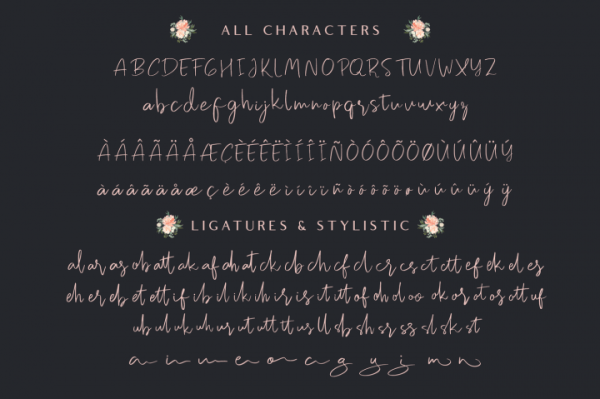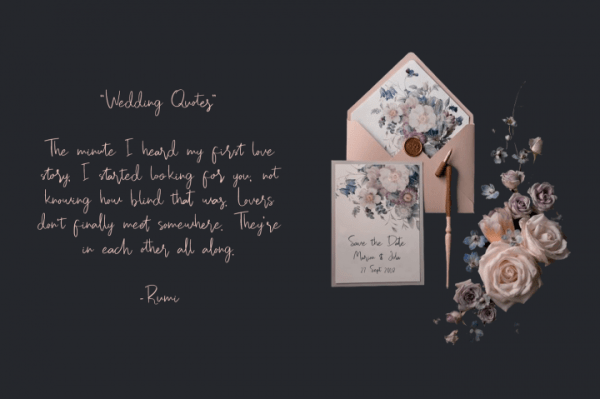
Freebie Wednesday: Pastelyn Handwritten Font
Pastelyn (designed by Craft Supply Co.) is an elegant handwritten font and totally free for the next 6 days!